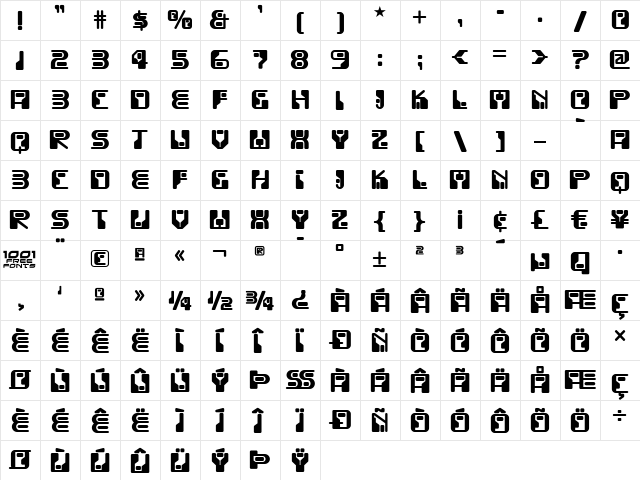
Funky Rundkopf NF Regular
Design Context for Funky Rundkopf NF Typeface
Funky Rundkopf NF trades formality for fun, with bouncy, characterful letterforms that bring warmth and energy to any project.
Font Pairing: Pairs well with a rounded or humanist sans for body copy, maintaining the friendly tone without relying on Funky Rundkopf NF to carry extended reading.
Pro Tip: Avoid using Funky Rundkopf NF for long passages of text — it works best for headlines, labels, and short calls to action.